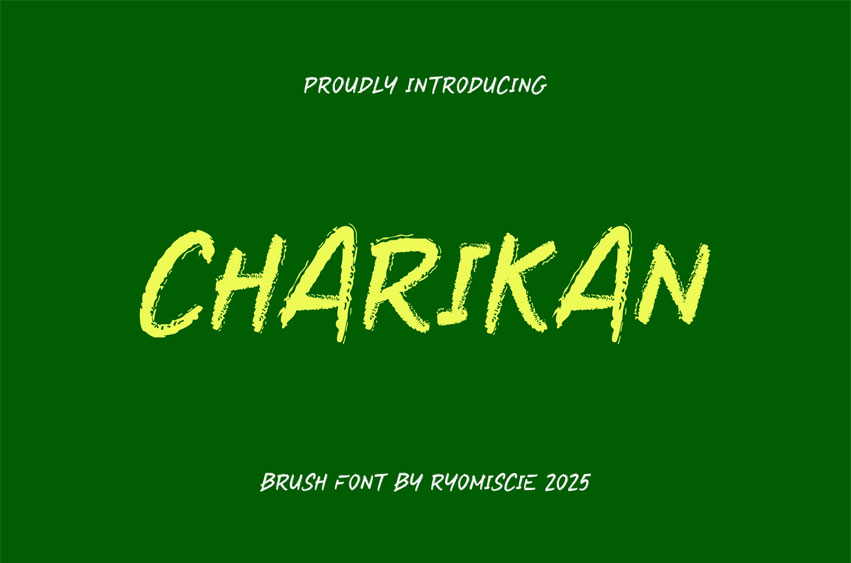
Charikan Font Modern Font is a bold and authentic display font. The font is suitable for any branding project like logo, t-shirt printing, esport, and many more. outstanding in a wide range of contexts.